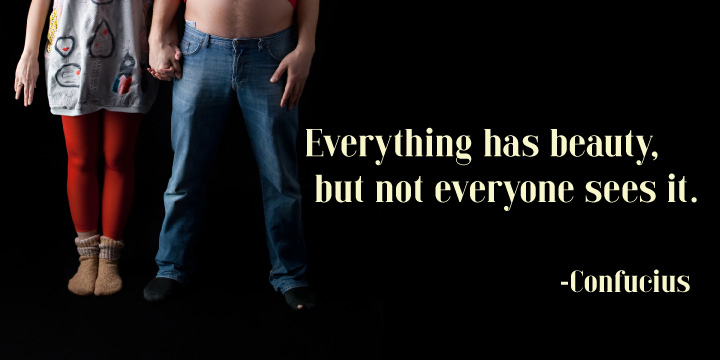
Mol Font excels in contemporary design applications including minimalist brand identity, modern logo design, clean editorial layouts, scientific publications, tech startup branding, architectural presentations, contemporary art galleries, and sleek digital interfaces that require typography with refined simplicity and geometric precision.
What makes Mol Font exciting is its remarkable ability to communicate sophisticated minimalism through precisely crafted letterforms that embody clarity and modern elegance. This distinctive typeface features clean, geometric construction with subtle character details that create visual interest while maintaining exceptional readability and professional appeal. The font's understated confidence and contemporary sophistication make it perfect for brands seeking to establish credibility through refined design choices and thoughtful typography.
Mol Font family encompasses multiple weights and styles designed for comprehensive modern communication needs. The family typically includes light, regular, medium, bold, and black weights, complemented by italic versions, condensed alternatives, and extensive character sets with multilingual support and professional OpenType features for advanced typography applications.
Contemporary design professionals consistently select Mol Font Free Download for projects requiring typography that balances modern aesthetics with functional excellence and timeless appeal. This versatile typeface adapts beautifully across digital and print applications, delivering consistent brand messaging with sophisticated simplicity and professional polish. The font's carefully engineered proportions ensure optimal performance in both display and text settings while maintaining the clean, authoritative presence that modern brands require. Leading creative agencies worldwide trust this refined typeface to communicate brand values of innovation, precision, and contemporary thinking. Establish your brand's modern credentials with Mol Font and create compelling visual communications that resonate with audiences who appreciate thoughtful design and sophisticated simplicity.